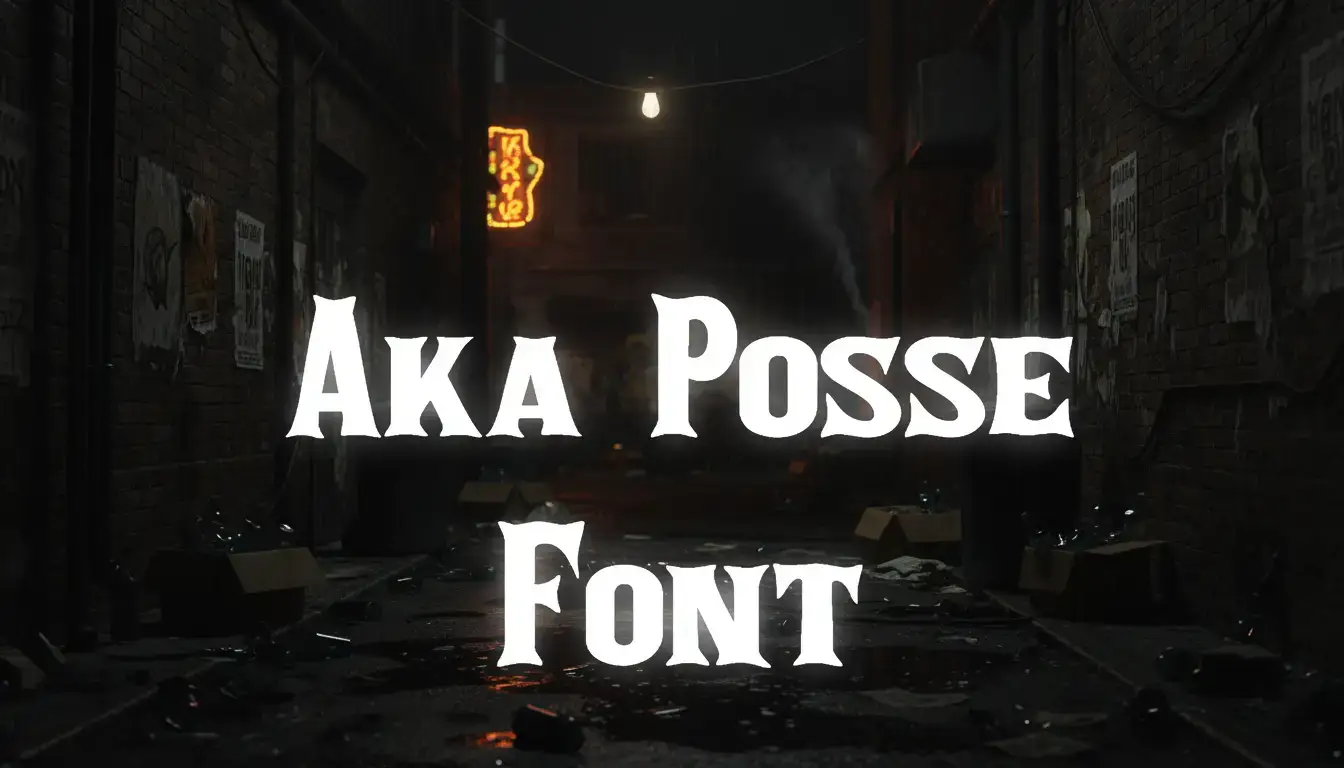
Aka Posse Font
Aka Posse
Aka Posse is a Western font created by James Milligan. Its letters feel straight out of a cowboy movie, sturdy and full of old-west character. You can download it for free and test it with your own words in the preview above.
What You Can Type With Aka Posse
You get every letter from A to Z in both cases and all the numbers from 0 to 9, which means Aka Posse can handle full sentences, dates and prices. Common punctuation such as &, !, ? and @ is included as well. It also has the accented letters you need for Spanish, French, German, Portuguese and Italian.
Where Aka Posse Works Best
Designers usually reach for fonts like Aka Posse when they're making rodeo posters, saloon signs and country music flyers. Try it in brown, rust or cream on a paper texture for the full old-west look.
Does Aka Posse support accented letters?
Yes. Aka Posse includes the accented letters needed for Spanish, French, German, Portuguese and Italian, so it works for more than just English.
What fonts pair well with Aka Posse?
A sturdy slab serif or a simple serif works well for the smaller text.